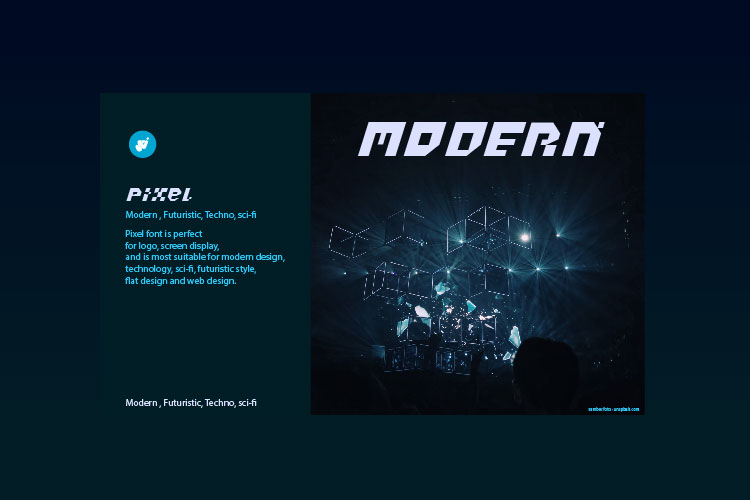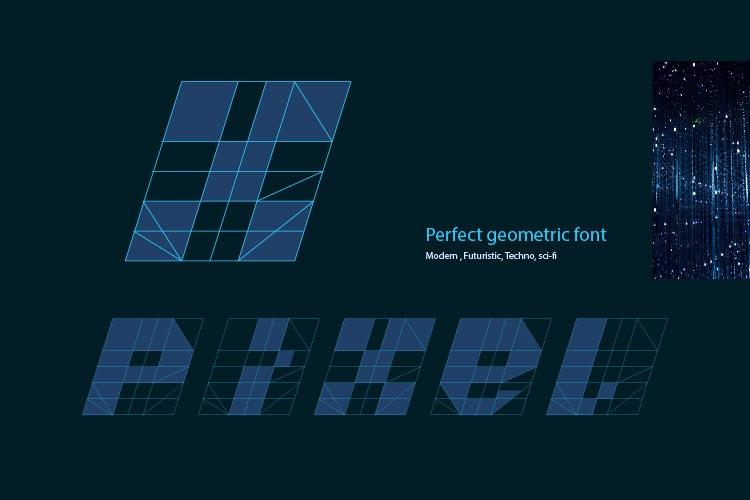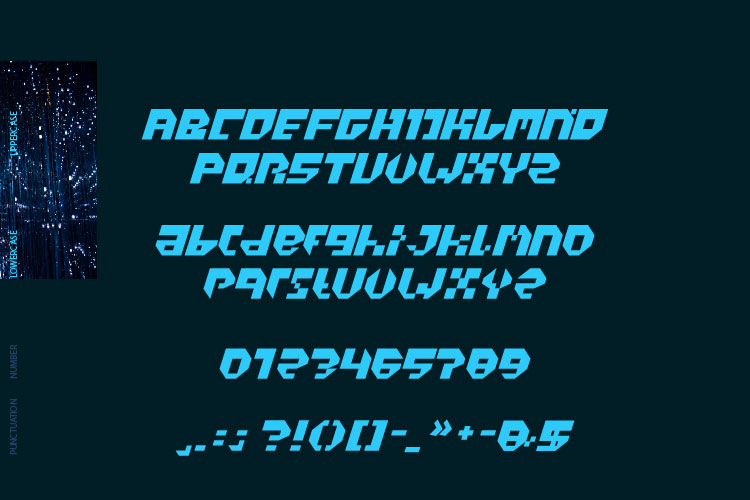
Pixel Font
Pixel Display Font
This is perfect geometric font, with clean and modern style. Pixel font family is perfect for modern logo, screen display, and is most suitable for modern design, technology, sci-fi, futuristic style, flat design and web design.